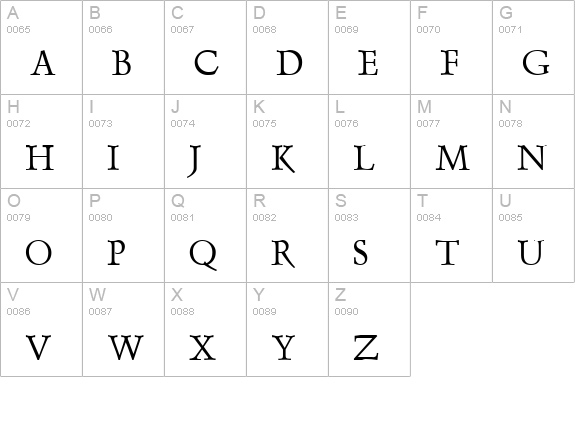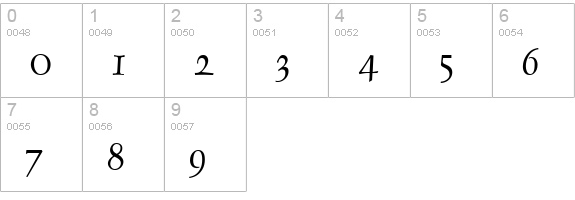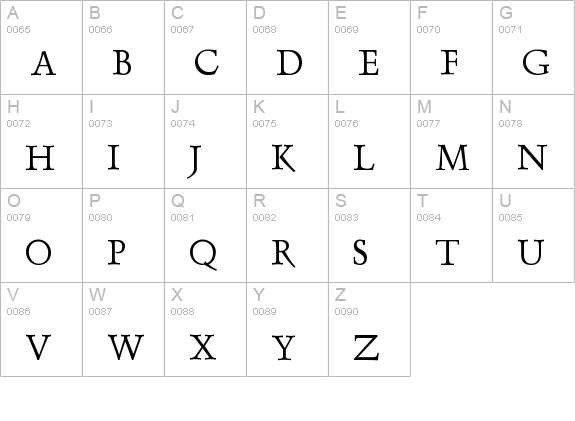
TR Dauphin is a beautifully crafted font that exudes elegance and sophistication. With its delicate curves and stylish letterforms, this font is perfect for adding a touch of class to any project. Whether you're designing a wedding invitation, creating a logo, or working on a branding project, TR Dauphin is sure to make a statement. The best part? TR Dauphin is available for free download at FontsMarket.com. So you can easily access this stunning font and use it in your designs without any cost. Don't miss out on the opportunity to enhance your work with the timeless beauty of TR Dauphin. Download it today and elevate your designs to the next level.